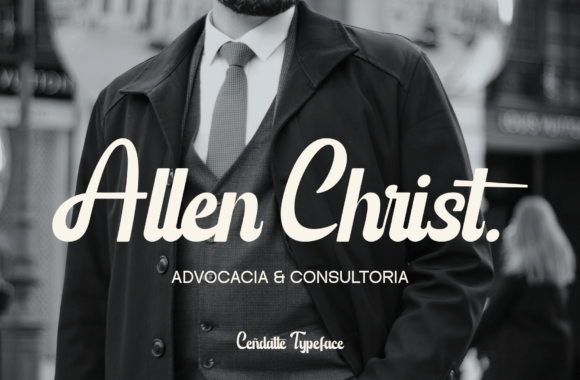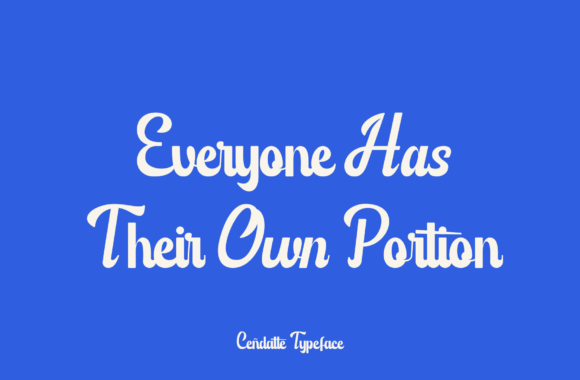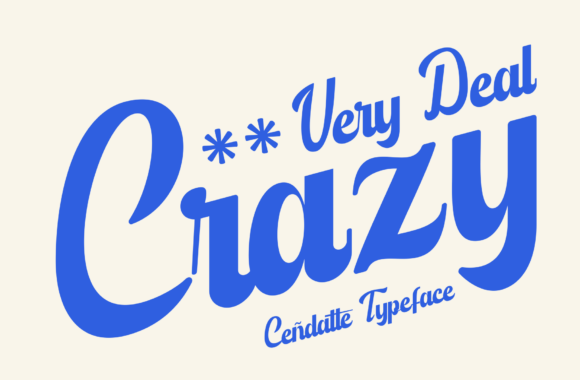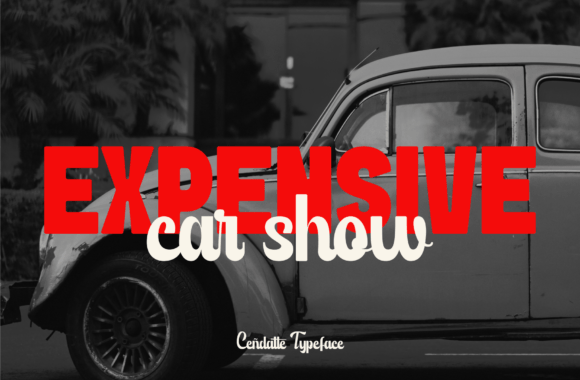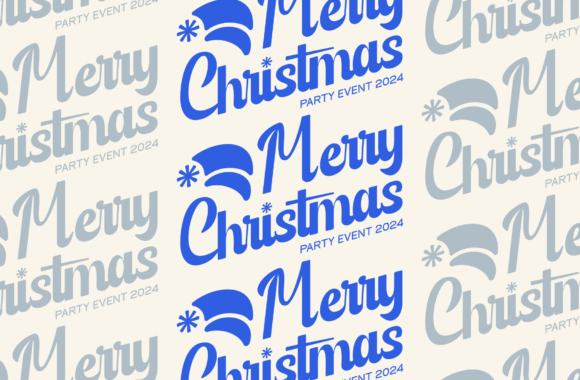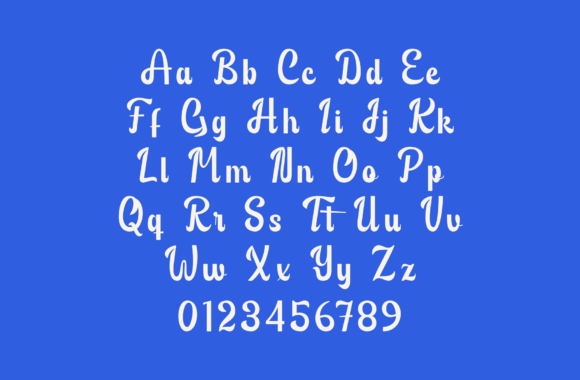
Introducing Cendatte: The Modern Handwritten Script Font for Impactful Designs
In the world of typography, a font can make or break a design. With the ever-growing demand for unique and eye-catching visuals, designers and crafters are constantly on the lookout for innovative and versatile fonts. This is where Cendatte comes into play – a modern handwritten script font that is poised to revolutionize the way you approach your designs. In this article, we’ll delve into the features, benefits, and applications of Cendatte, and explore why it’s an essential addition to your typography arsenal.
The Distinct Characteristics of Cendatte
Cendatte boasts a distinct blend of display font characteristics, setting it apart from other handwritten script fonts. Its smooth, rounded edges give it a friendly yet sophisticated look, making it perfect for designs that require a touch of elegance and approachability. The font’s bold and sturdy nature provides a strong visual presence, making it ideal for impactful designs that demand attention.
One of the standout features of Cendatte is its versatility. The font comes in two style options: regular and italic. This allows designers to experiment with different looks and feels, ensuring that their designs are always fresh and engaging. Whether you’re working on a logo, headline, or branding project, Cendatte’s flexibility has got you covered.
The Benefits of Using Cendatte
So, what makes Cendatte an attractive option for designers and crafters? Here are just a few benefits of using this modern handwritten script font:
- Readability and Elegance: Despite its bold nature, Cendatte maintains exceptional readability and elegance. This makes it perfect for designs that require a strong visual presence without compromising on legibility.
- Versatility: With two style options (regular and italic), Cendatte offers a range of creative possibilities. Whether you’re working on a logo, headline, or branding project, this font can adapt to your design needs.
- Unique and Eye-Catching: Cendatte’s smooth, rounded edges and bold nature make it a unique and eye-catching addition to any design. It’s sure to grab attention and leave a lasting impression.
Applications of Cendatte
Cendatte’s versatility and unique characteristics make it suitable for a wide range of design applications. Here are some ideas to get you started:
- Logos: Cendatte’s bold and sturdy nature makes it perfect for logos that require a strong visual presence. Its elegance and readability ensure that your brand’s identity is communicated effectively.
- Headlines: Add a touch of sophistication and friendliness to your headlines with Cendatte. Its smooth, rounded edges and bold nature make it perfect for grabbing attention.
- Branding: Cendatte’s versatility and unique characteristics make it an excellent choice for branding projects. Use it to create a cohesive visual identity that resonates with your target audience.
Tips for Using Cendatte Effectively
To get the most out of Cendatte, here are some tips to keep in mind:
- Experiment with Different Sizes: Cendatte’s bold nature makes it perfect for large-scale designs. Experiment with different sizes to find the perfect balance for your project.
- Pair it with Other Fonts: Cendatte’s versatility makes it an excellent choice for pairing with other fonts. Experiment with different combinations to find the perfect match for your design.
- Play with Colors: Cendatte’s smooth, rounded edges and bold nature make it perfect for designs that require a pop of color. Experiment with different color schemes to find the perfect fit for your project.
Cendatte is a game-changing modern handwritten script font that’s poised to revolutionize the way you approach your designs. Its unique blend of display font characteristics, smooth rounded edges, and bold nature make it perfect for impactful designs that demand attention. With its versatility, readability, and elegance, Cendatte is an essential addition to any designer’s typography arsenal. So why wait? Give Cendatte a try today and take your designs to the next level!